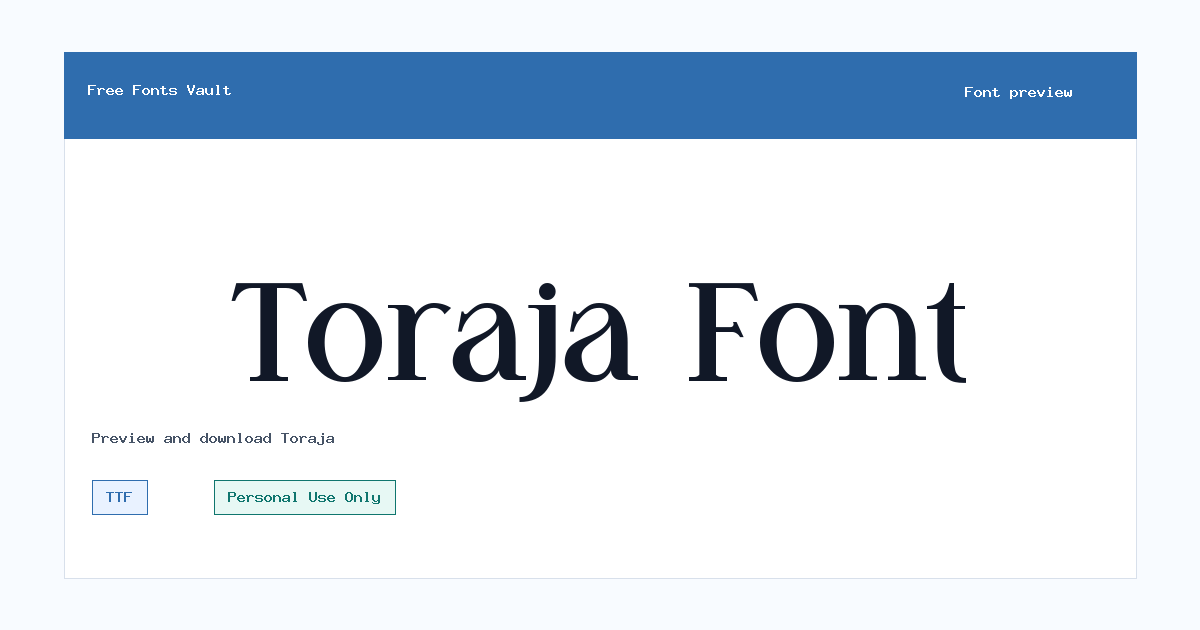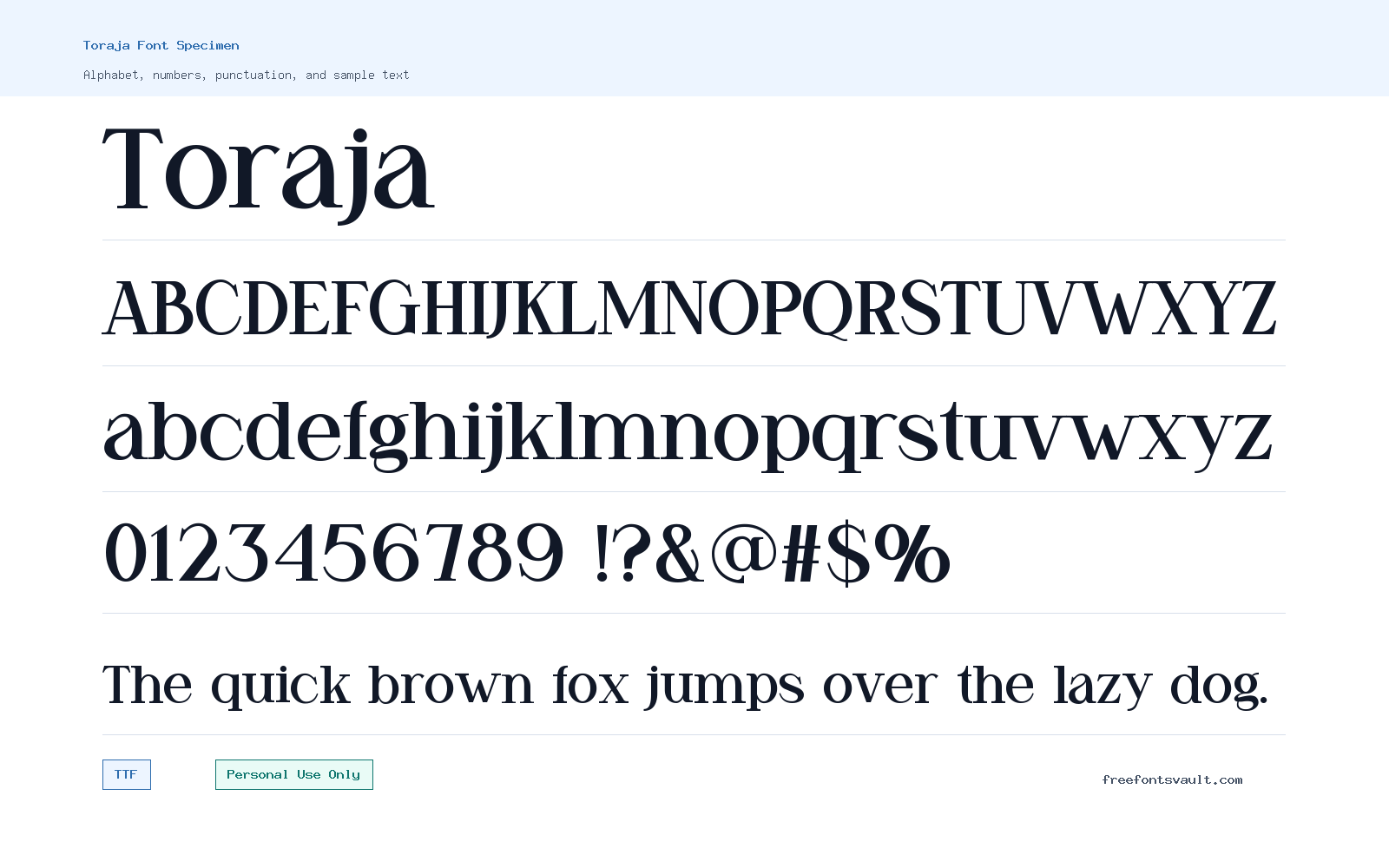
Toraja
Toraja font.
Toraja is a serif font from TOKOPRESS with a regular TTF style for personal-use design work. It is a good font to test when you want a decorative serif voice without moving too far from readable letter shapes.
About Toraja Font
Toraja has the formal base of a serif typeface, so it is better suited to display settings than long blocks of small body text. Use the preview tool to judge its details at the size you actually need, especially for uppercase words, short headings, names, and logo-style mockups. Since only the regular style is listed, the safest approach is to build contrast through size, spacing, color, or pairing rather than relying on bold or italic family members.
For practical use, start with short text. Try a title, a product name, a poster line, or a social graphic headline before committing it to a full layout. Serif fonts with a distinct display feel can look strong in large sizes but may lose clarity when squeezed into small captions or dense paragraphs. If you pair Toraja with another typeface, choose a plain sans serif or a quiet text serif for supporting copy so the main wordmark or heading remains the focus.
- Serif display character suitable for headings, names, and short text previews
What style of font is Toraja?
Toraja is listed as a serif font in a regular, normal style. It is best tested in larger display uses such as titles, names, and short design text.